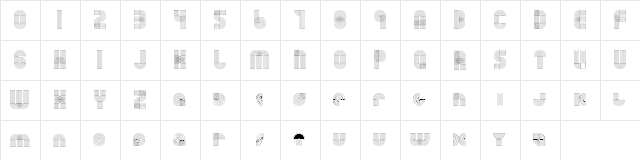
Orbits Thin
| Foundry | Lukasz Kulakowski and Zbyszek Czapnik |
Design Context for Orbits Typeface
Orbits is a composed and adaptable typeface that performs quietly and consistently across a wide range of design contexts. The delicate stroke weight brings airiness and refinement to layouts.